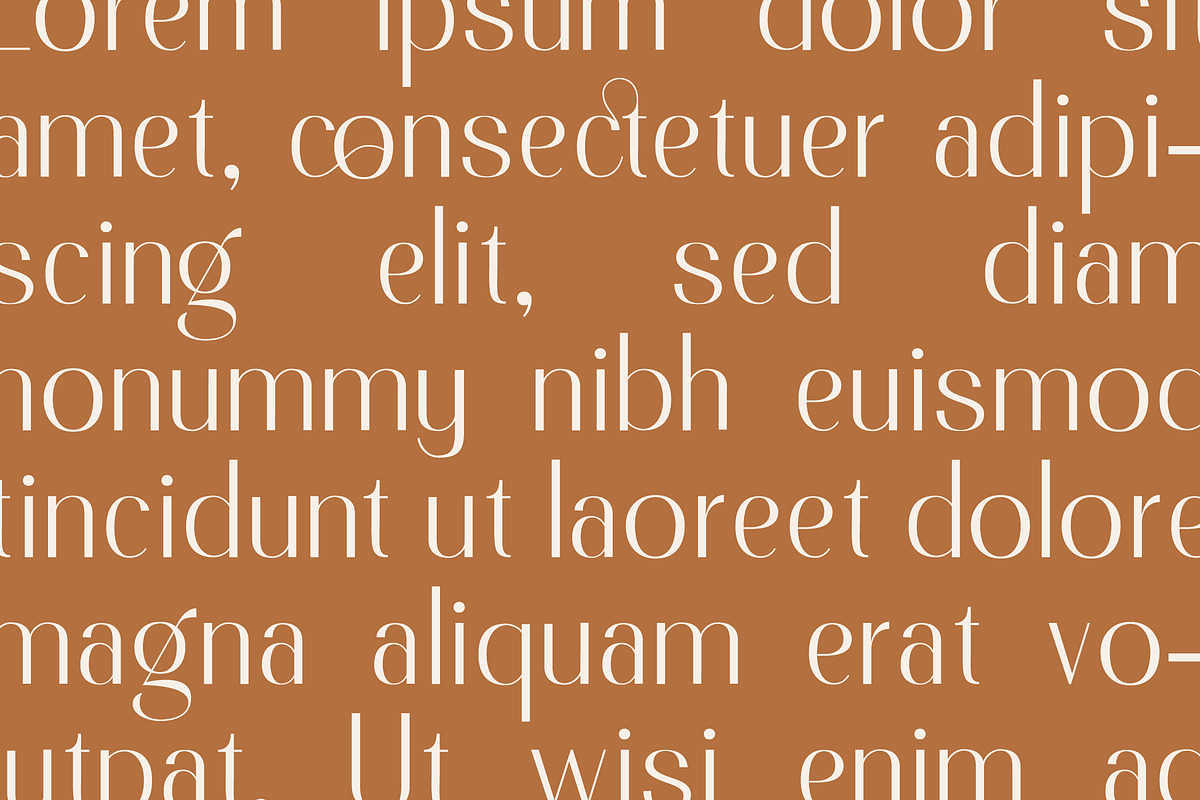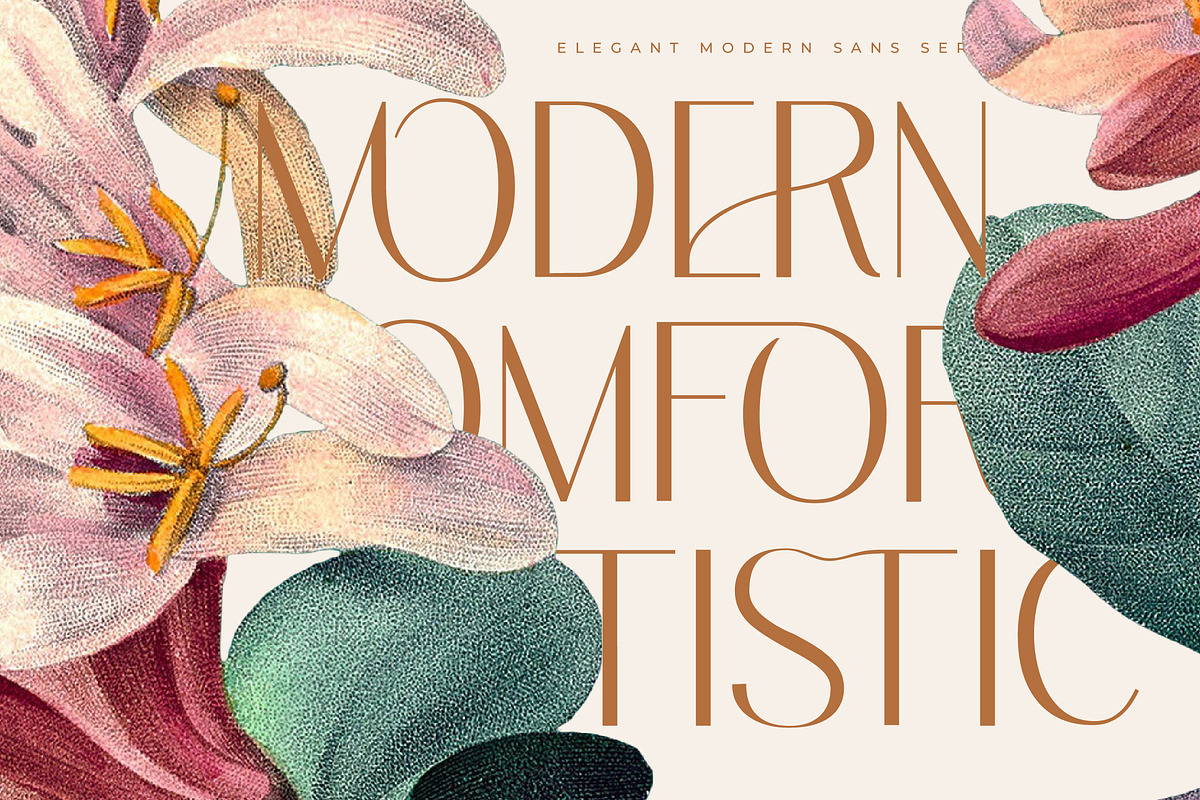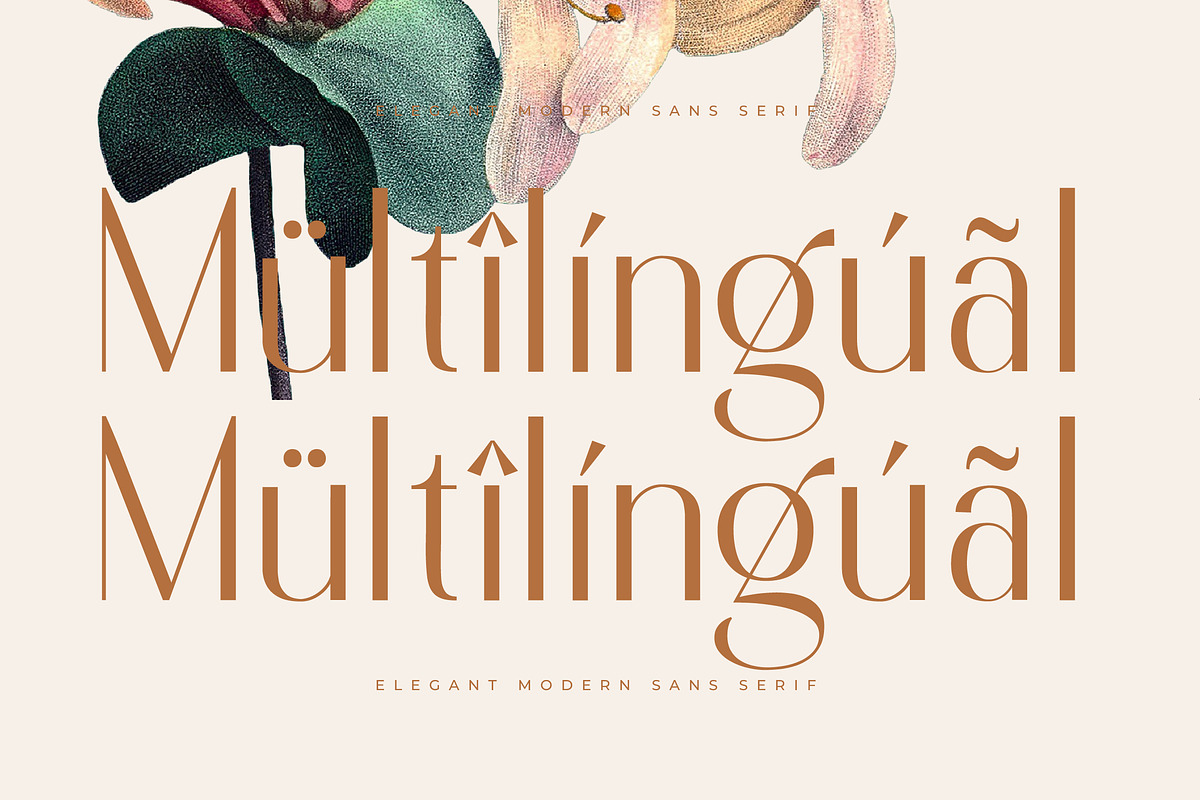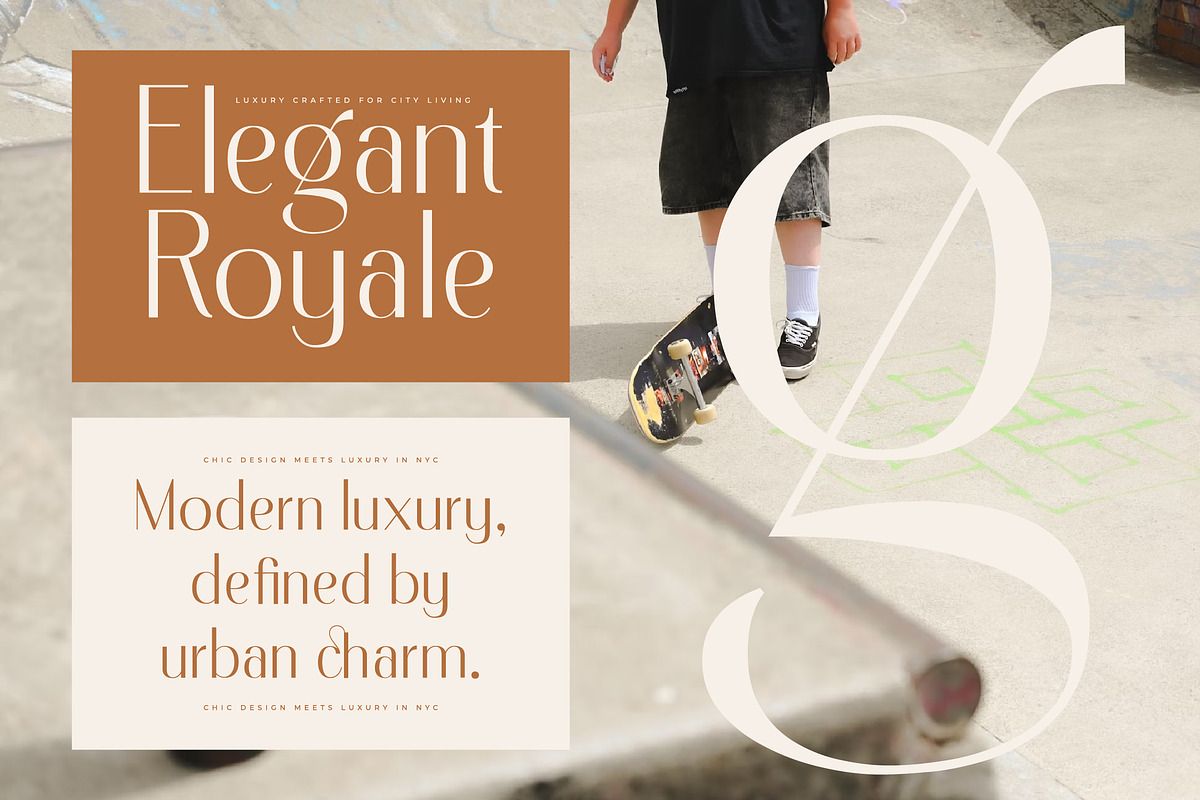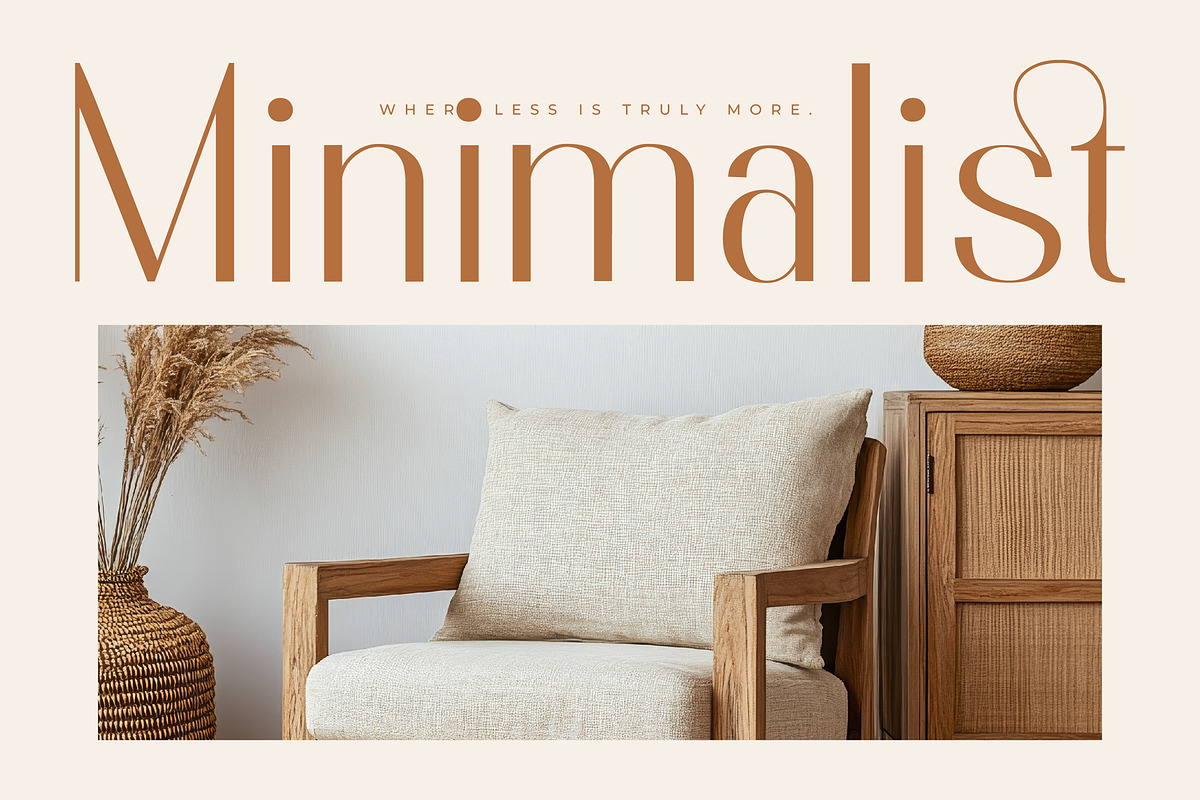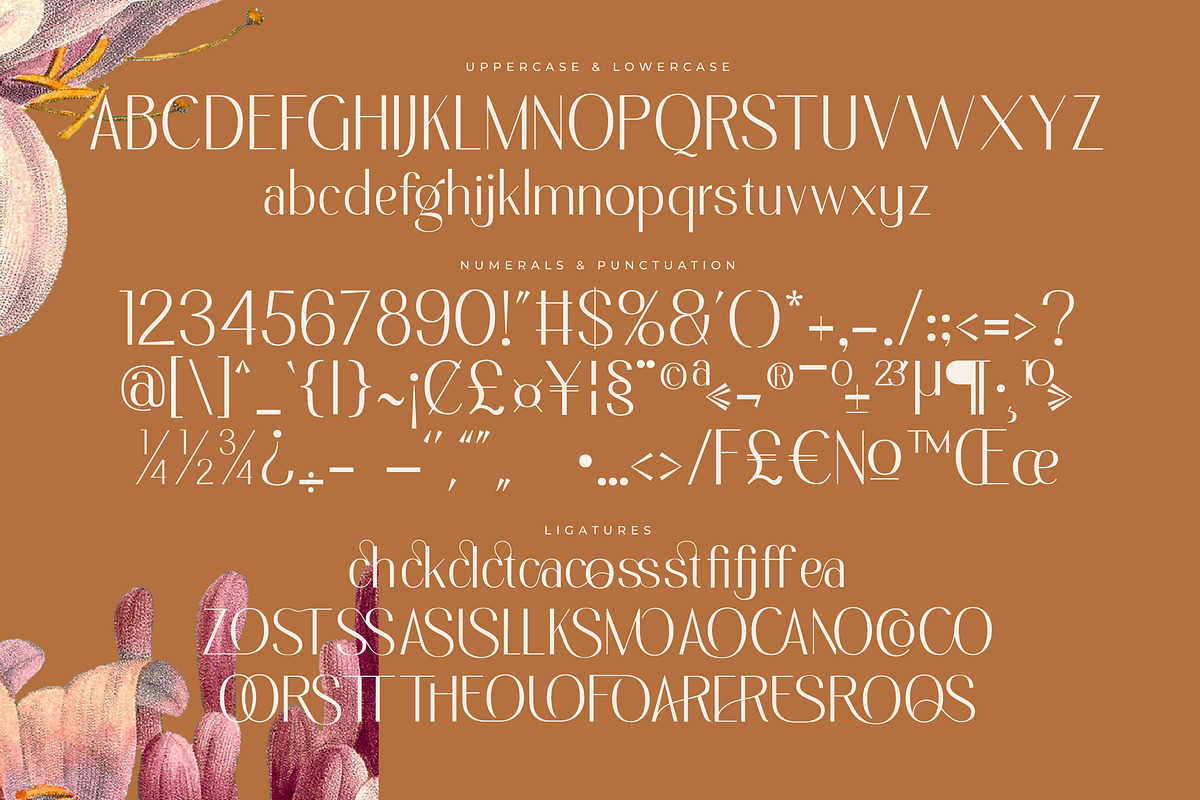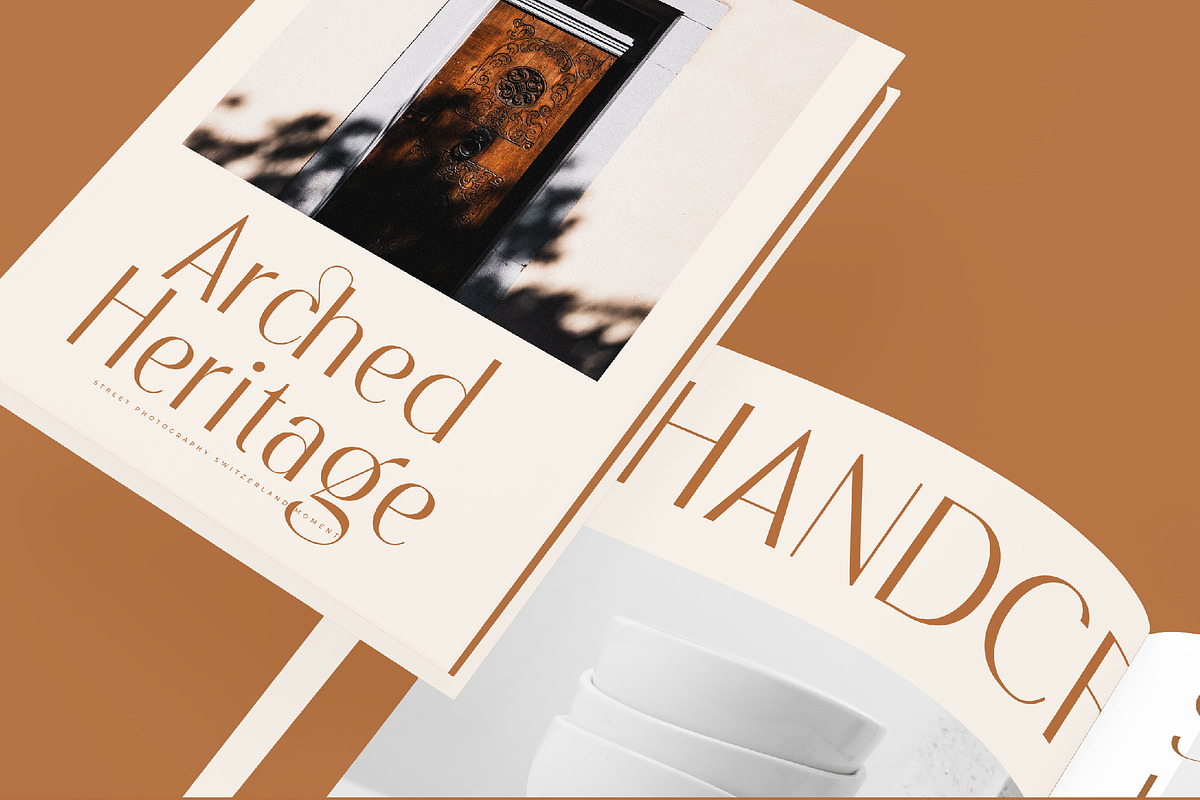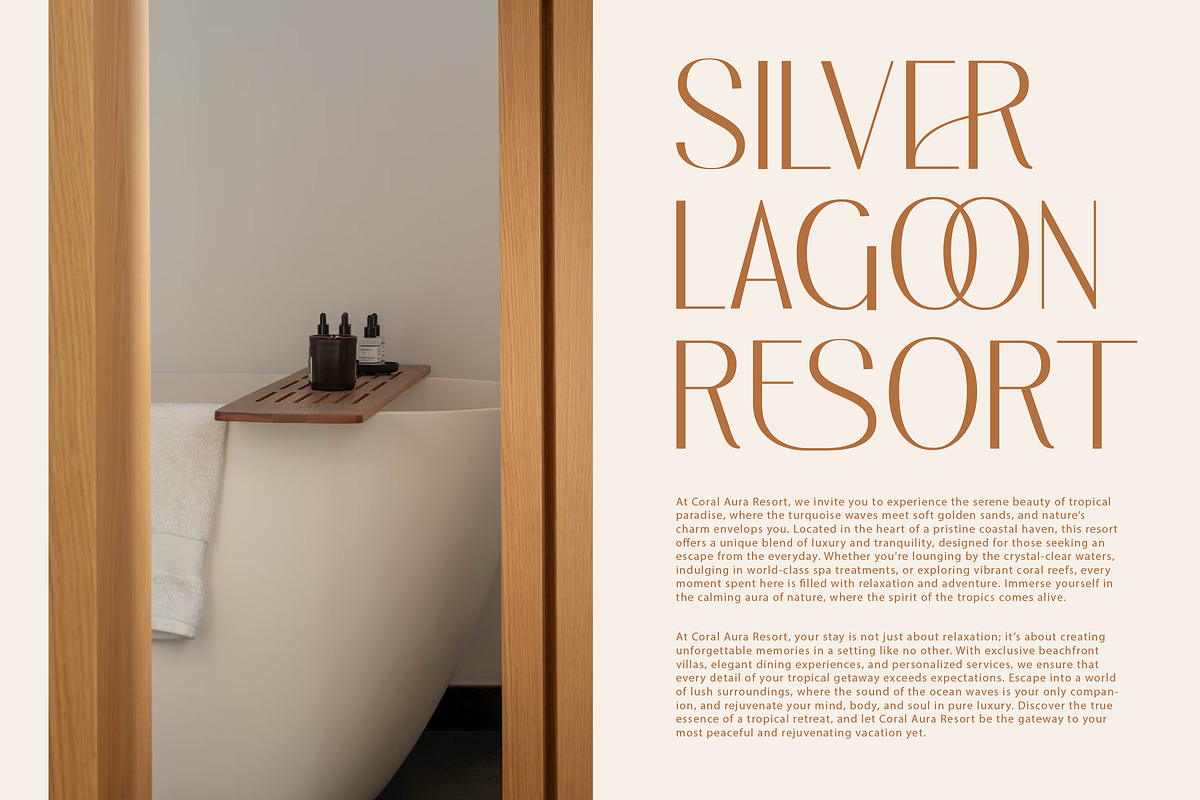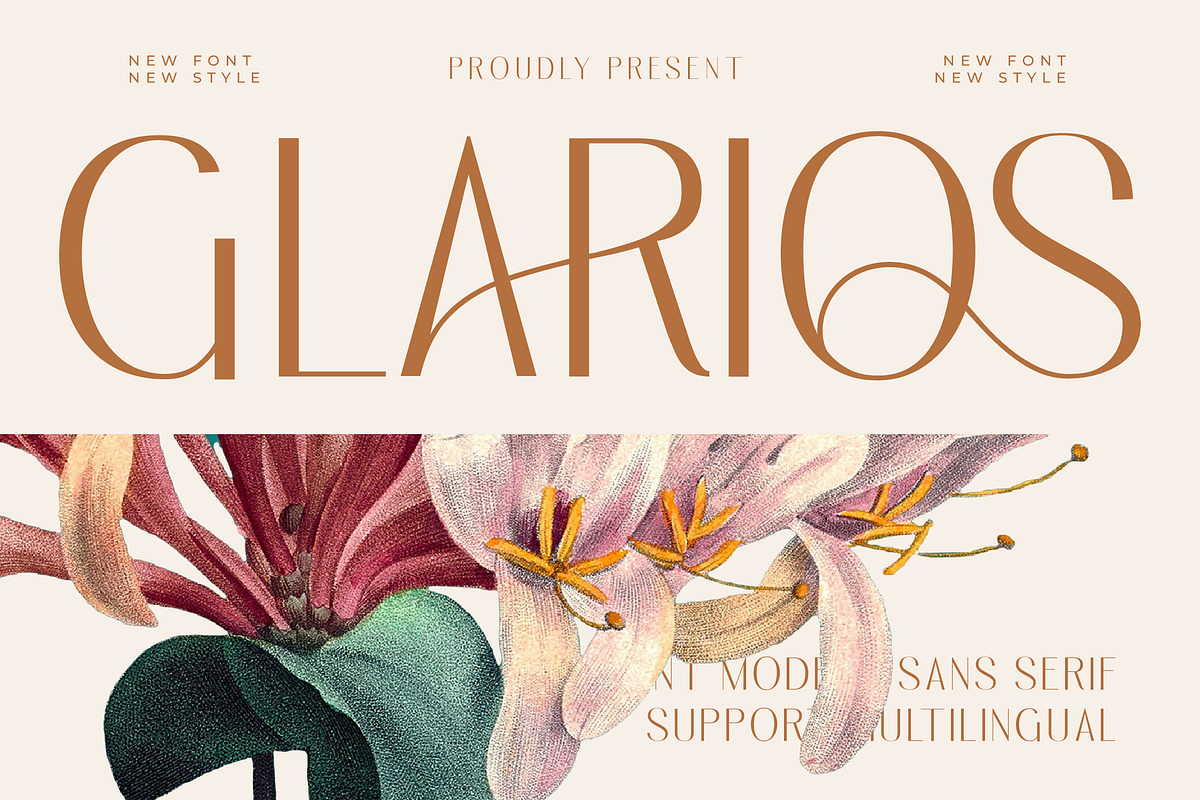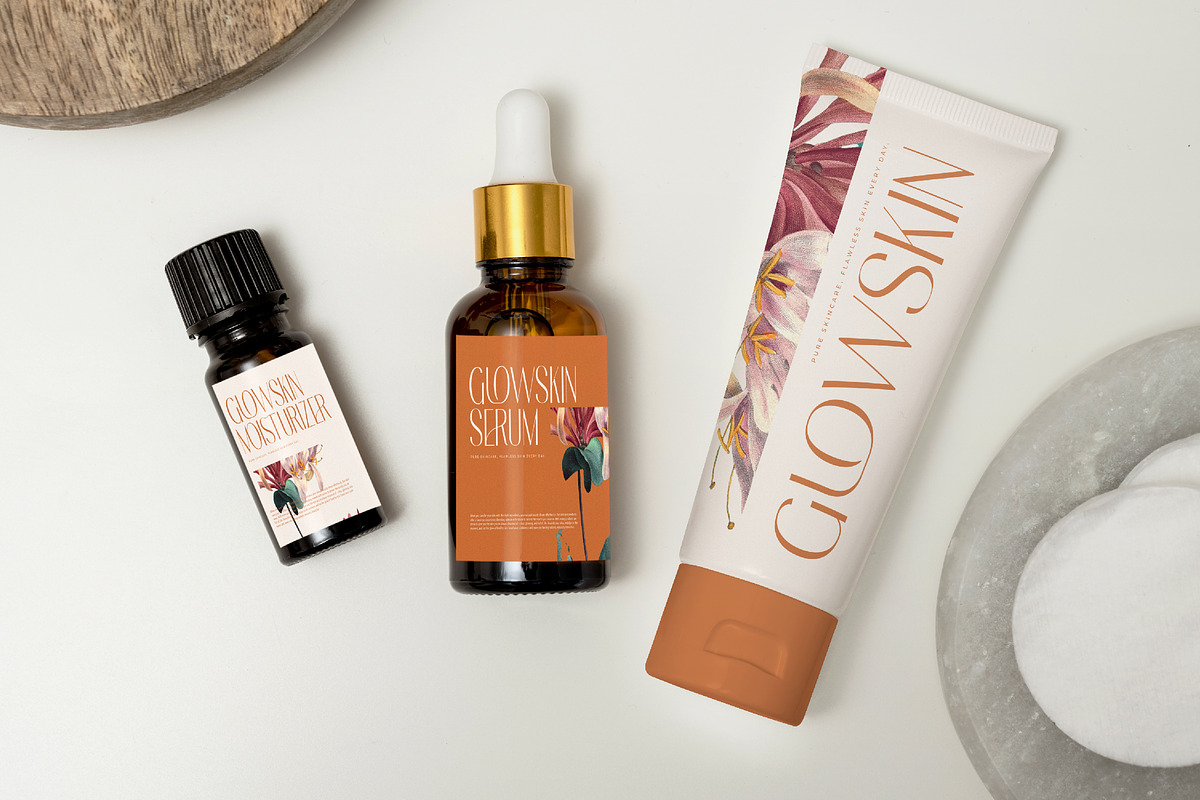
Glarios Elegant Luxury Sans Serif
Glarios Elegant Luxury Sans Serif Font
Glarious sans serif font is a unique, modern geometric font with a unique, elegant, modern, and geometric style. It is a sans-serif font perfect for branding projects, logos, social media posts, product packaging, labels, etc.